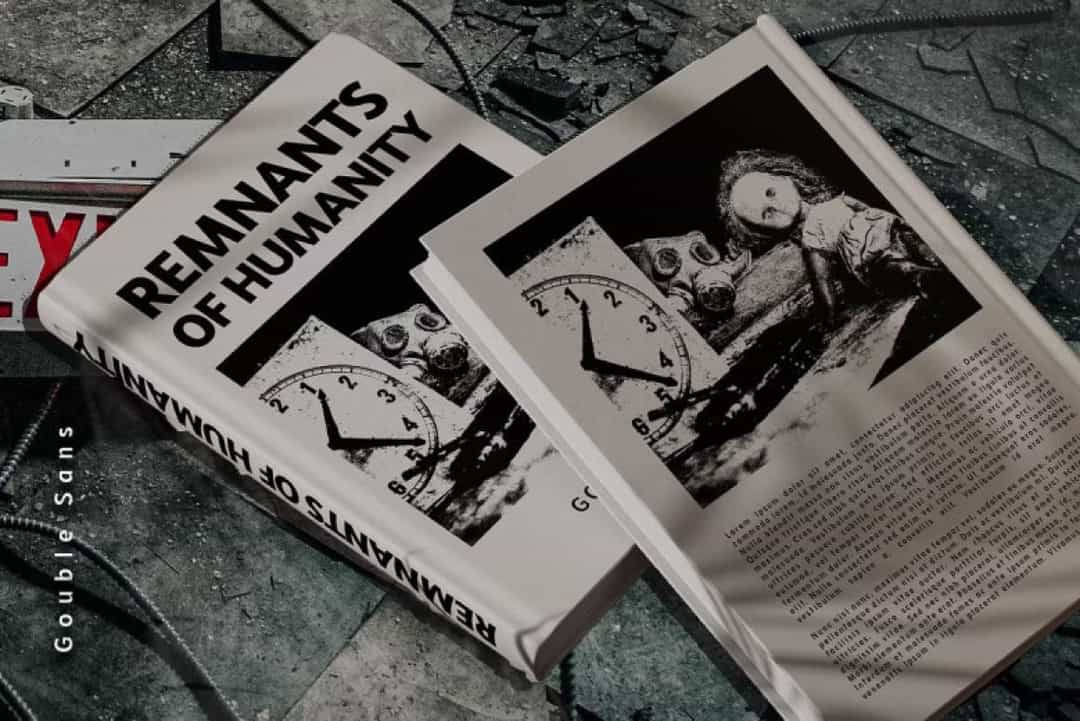
Gouble, a contemporary gothic sans-serif typeface distinguished by its geometrical precision and striking presence, stands out as an authoritative and modern voice in design work. Its crisp lines and proportions evoke modern architecture; sharp angles provide contemporary professional style. It’s consistent stroke weights convey credibility and effect, ideal as headlines or branding.